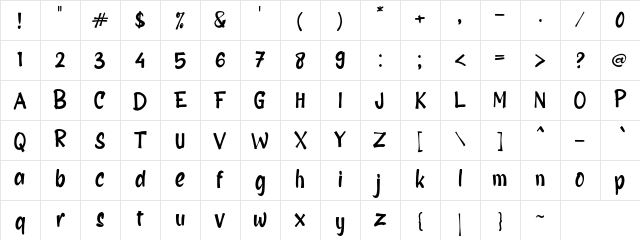
b Bagian Regular
Designer: Wahyu Eka Prasetya
Design Context for b Bagian
b Bagian is a composed and adaptable typeface that performs quietly and consistently across a wide range of design contexts.